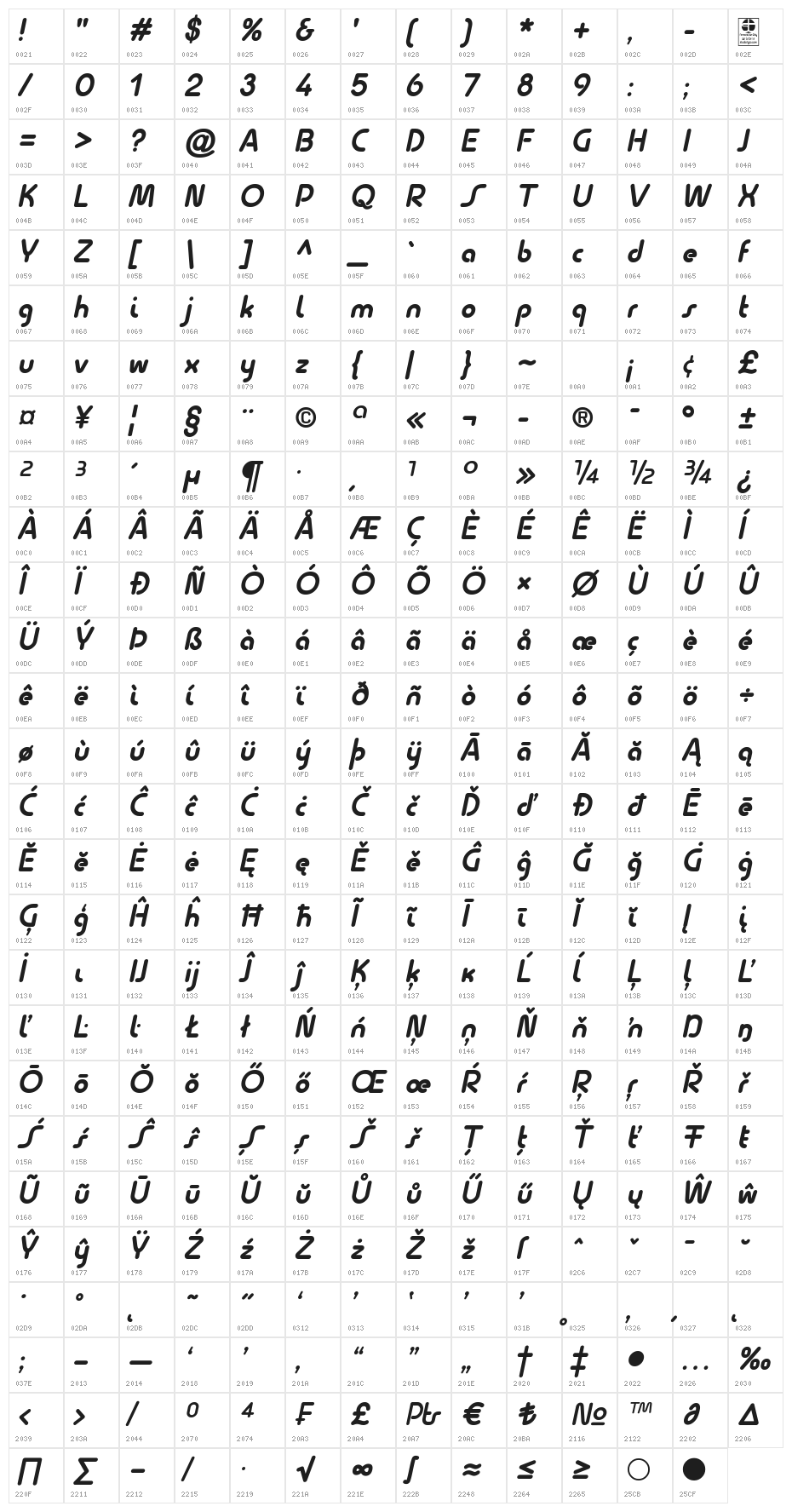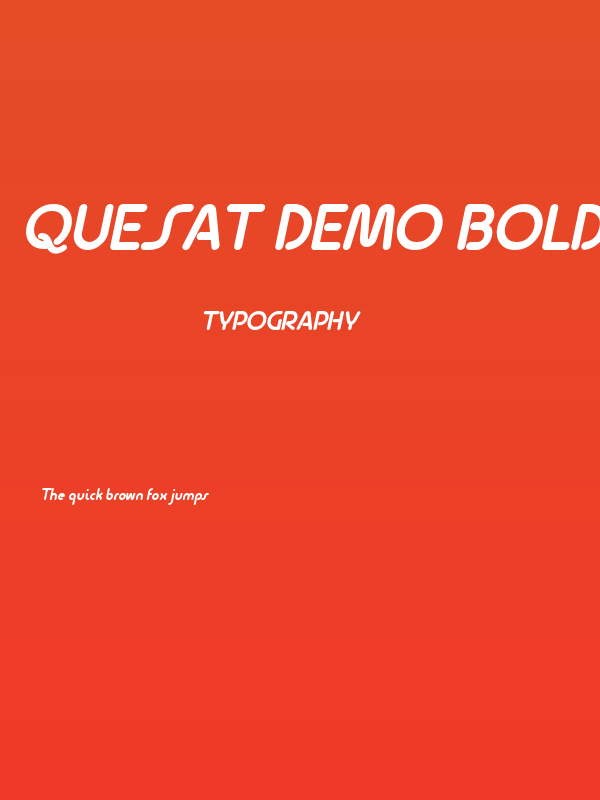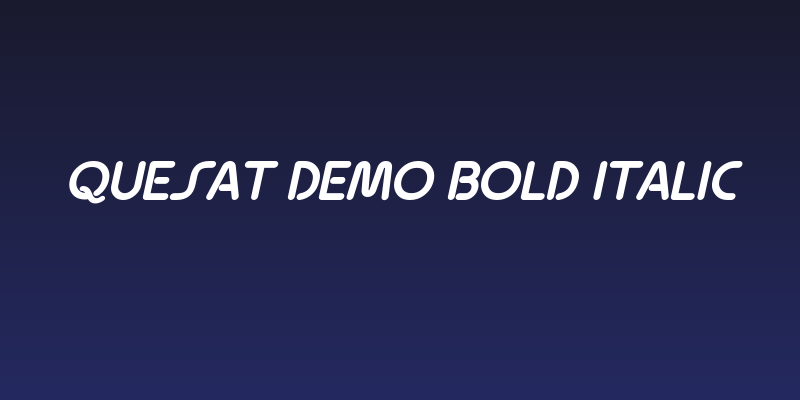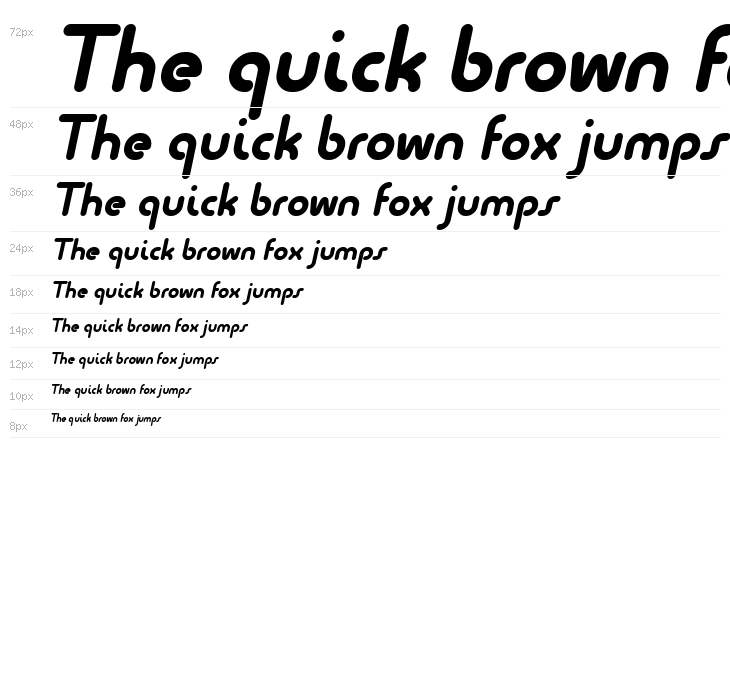
Quesat Demo Bold Italic Font
Quesat Demo Bold Italic Description
This font features a bold and italicized style with rounded edges and smooth curves, giving it a modern and playful appearance. The uppercase letters are slightly slanted, enhancing the dynamic feel, while the lowercase letters maintain a consistent flow with a slight tilt. The numerals are bold and clear, matching the overall aesthetic. Special characters are well-integrated, maintaining the font's cohesive look. The design is suitable for projects that require a friendly and approachable tone, with a touch of modernity.
| Proposed Projects | Ideal for branding, advertising, children's books, and playful graphic design projects. |